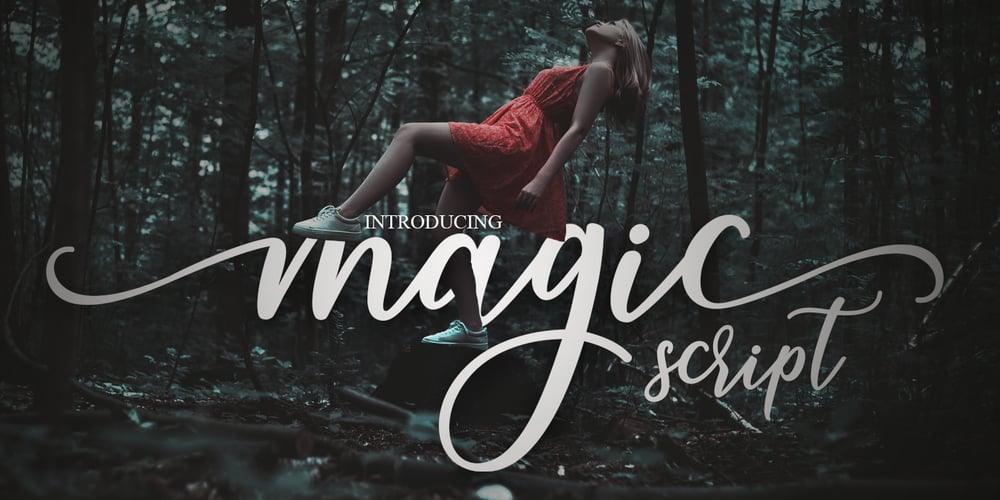
Magic Script Font Family was designed by Muhammad Rizal and published by MrLetters. Magic Script contains 1 styles and family package options. Magic Script is a modern calligraphy font with a current handwriting style. This font is perfect for branding, wedding invites, magazines, mugs, business cards, quotes, posters, and more, you can try first if you want to buy this font.To access the alternates you need a program that supports OpenType features such as Adobe Photoshop Cs/Adobe Photoshop CC, Adobe Illustrator CS/Adobe Illustrator CC, Adobe Indesign and Corel Draw and other programs that support OpenType. If you do not have a program that supports OpenType, you can access all the alternate glyphs using Font Book (Mac) or Character Map (Windows)If you have any question, don’t hesitate to contact me by email hello.mrletters@gmail.com Thanks and happy designing.Thank You for purchase!